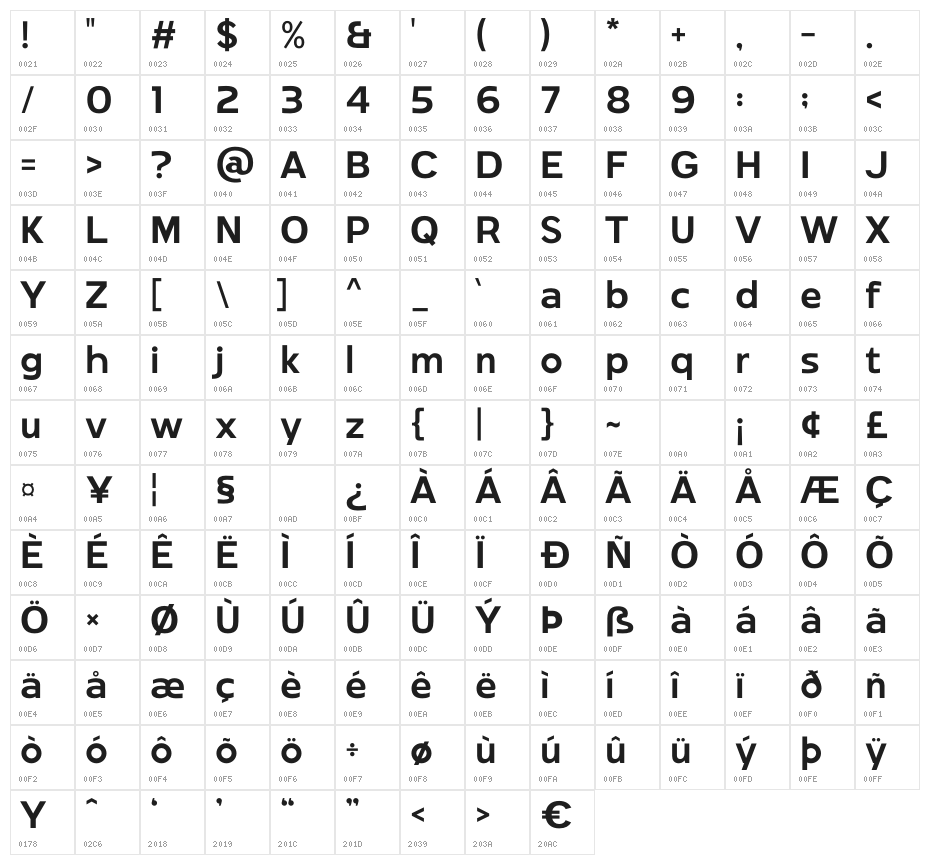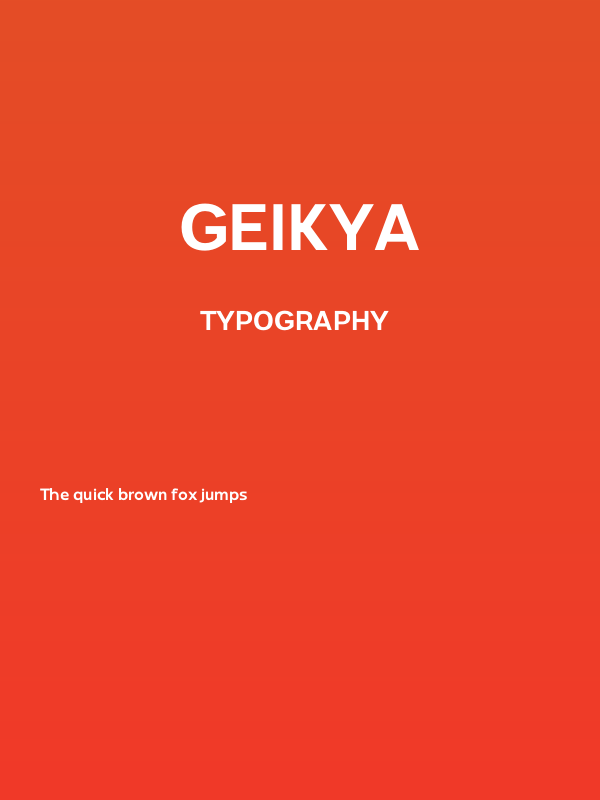
Geikya Font
Geikya Description
This font features a clean and modern sans-serif design, characterized by its uniform stroke width and geometric shapes. The uppercase letters are bold and assertive, while the lowercase letters maintain a consistent and harmonious appearance. The numerals are clear and easy to read, making them suitable for various applications. Special characters are well-defined, adding versatility to the font. The overall design is sleek and professional, ideal for contemporary projects.
| Use Case | Headlines, Logos, Branding |
| Proposed Projects | Ideal for branding, advertising, web design, and corporate materials due to its modern and professional look. |